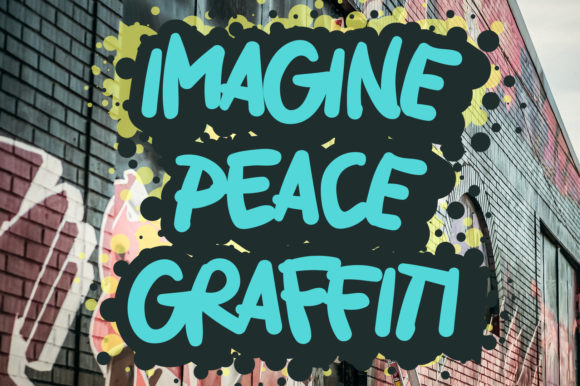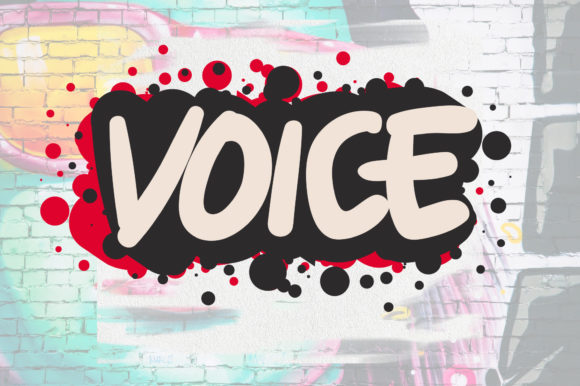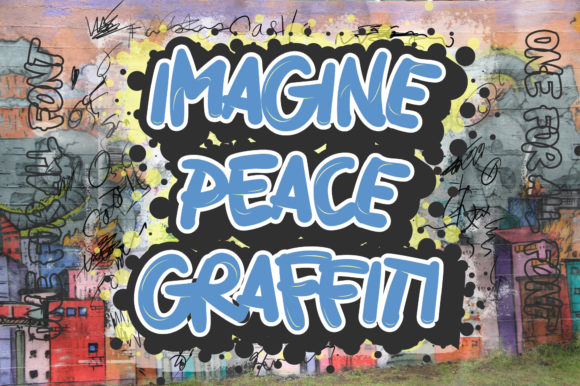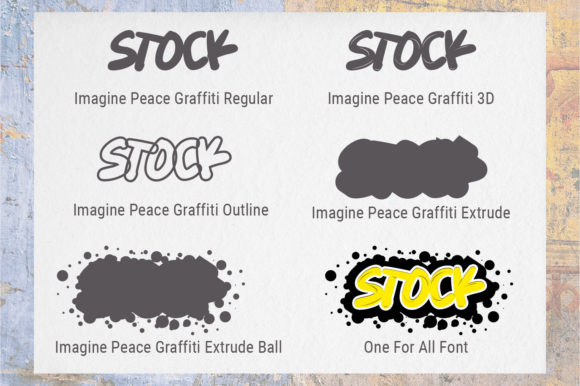
Imagine Peace Graffiti Font
About the Imagine Peace Graffiti Font
The wait is over! The incredible Imagine Peace Graffiti Font is now available for your design toolkit. Imagine Peace Graffiti is a cool, quirky and asymmetrical display font. It is suitable for designs such as t-shirts, sportswear, logos, advertisements, clothing, and more.
Its strong, asymmetrical forms make it ideal for headlines, posters, and branding projects that require a bold and rebellious statement. The quirky nature lends itself well to youth-oriented brands, streetwear, and music-related designs. Avoid using it for body text or UI elements; its low readability at smaller sizes would hinder user experience.
Imagine Peace Graffiti pairs well with clean sans-serif fonts like Open Sans or Montserrat for a balanced contrast, or a more geometric sans-serif such as Futura for a modern, high-impact feel. For a softer contrast, consider pairing it with a simple serif like Lora.
The font’s core personality is energetic and rebellious, conveying a sense of youthful freedom and creativity. It’s best suited for projects that need a strong visual impact and a slightly edgy aesthetic.
Imagine Peace Graffiti Font Usage Examples
Imagine Peace Graffiti Font Example